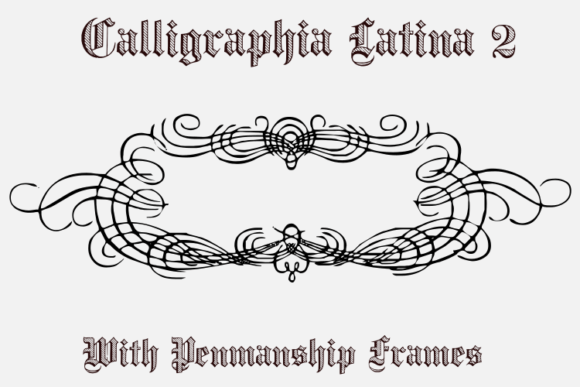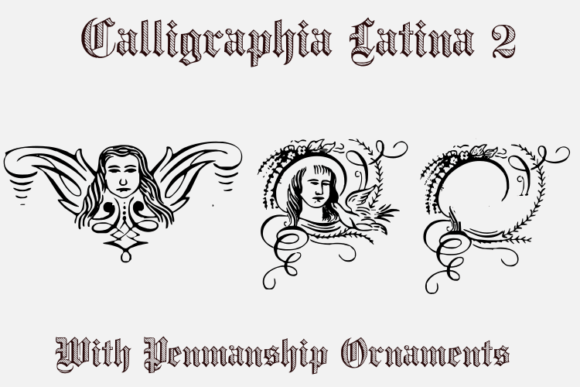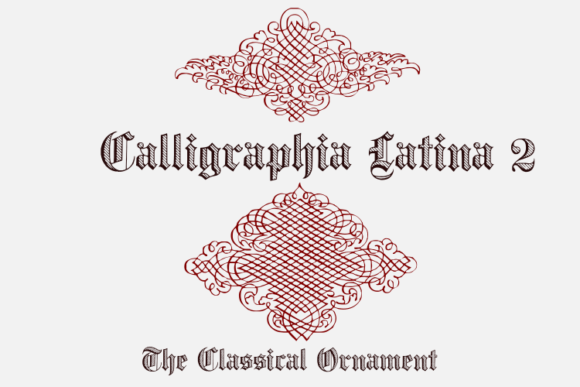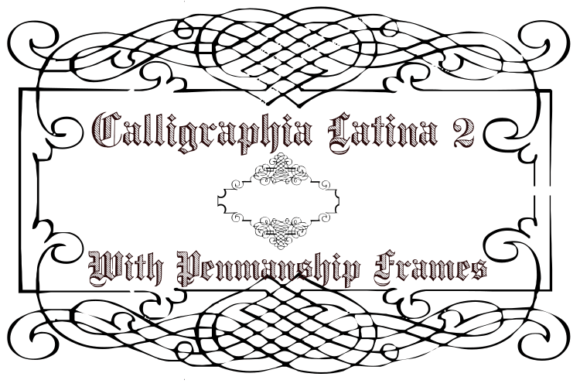
Introduction to Calligraphia Latina 2 Font
Calligraphia Latina is a trendy and classic set of dingbat ornaments; these ornaments have a classic-looking appeal, and work well when you want that worn-down yet ornate look.
Key Features of Calligraphia Latina 2 Font